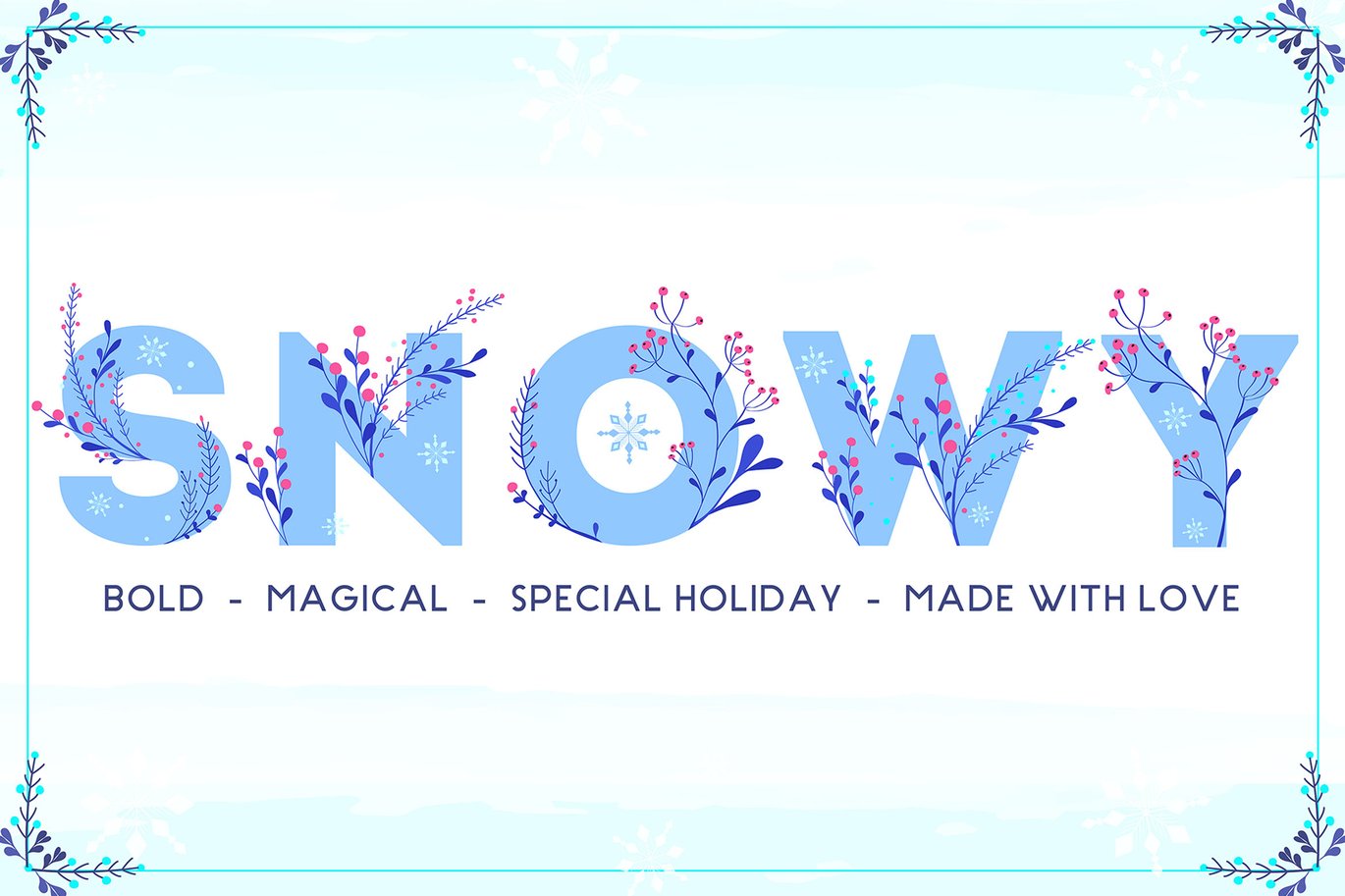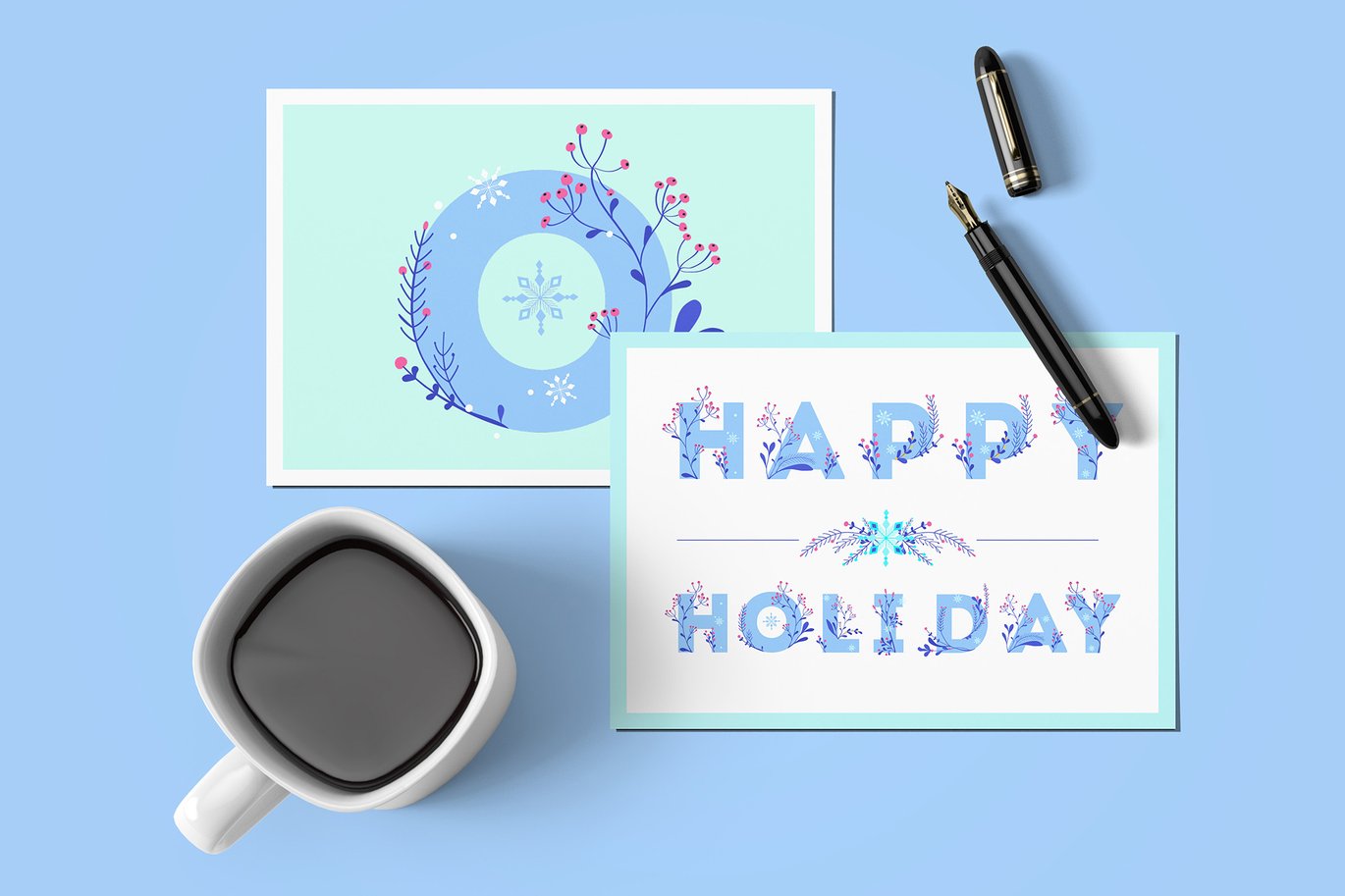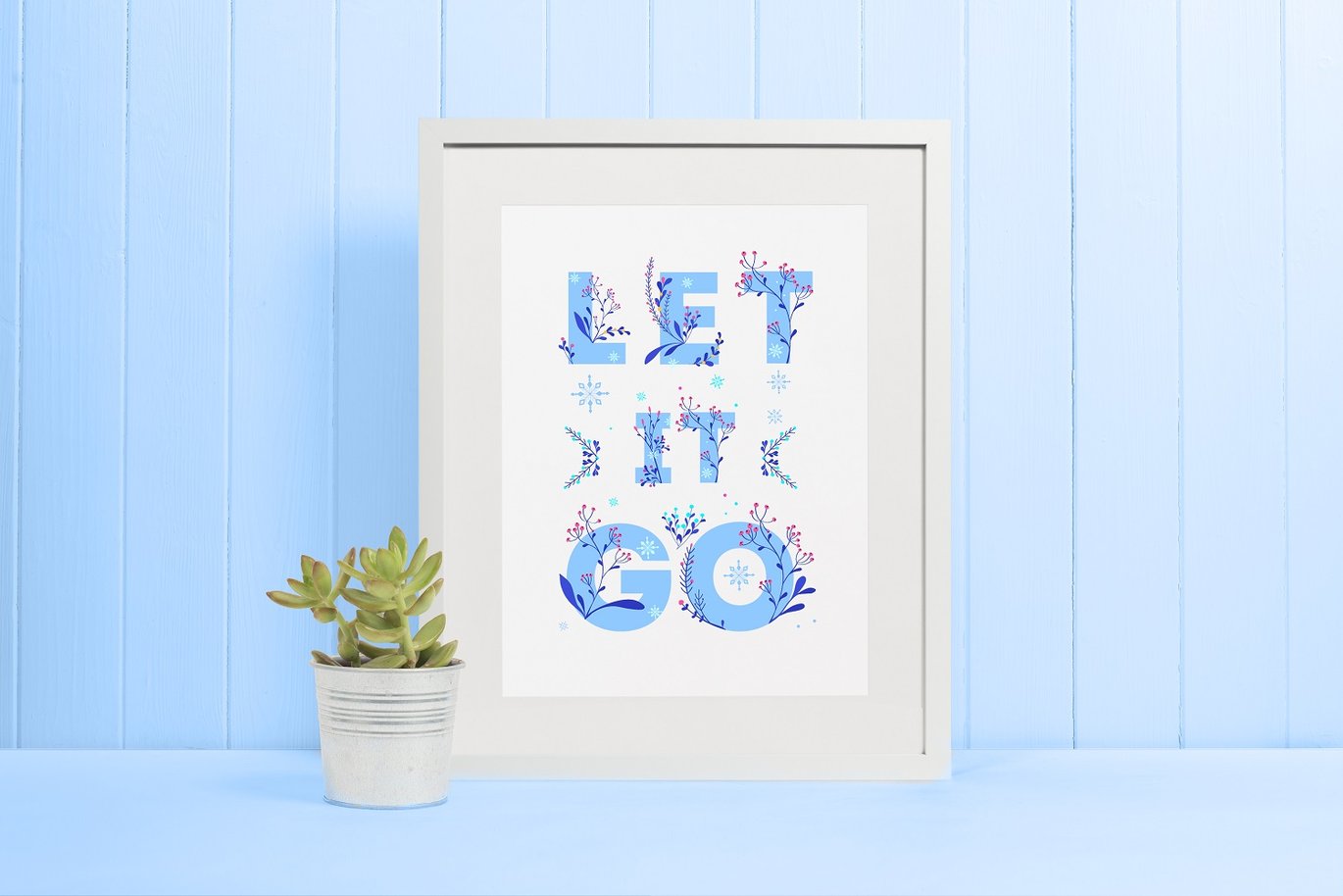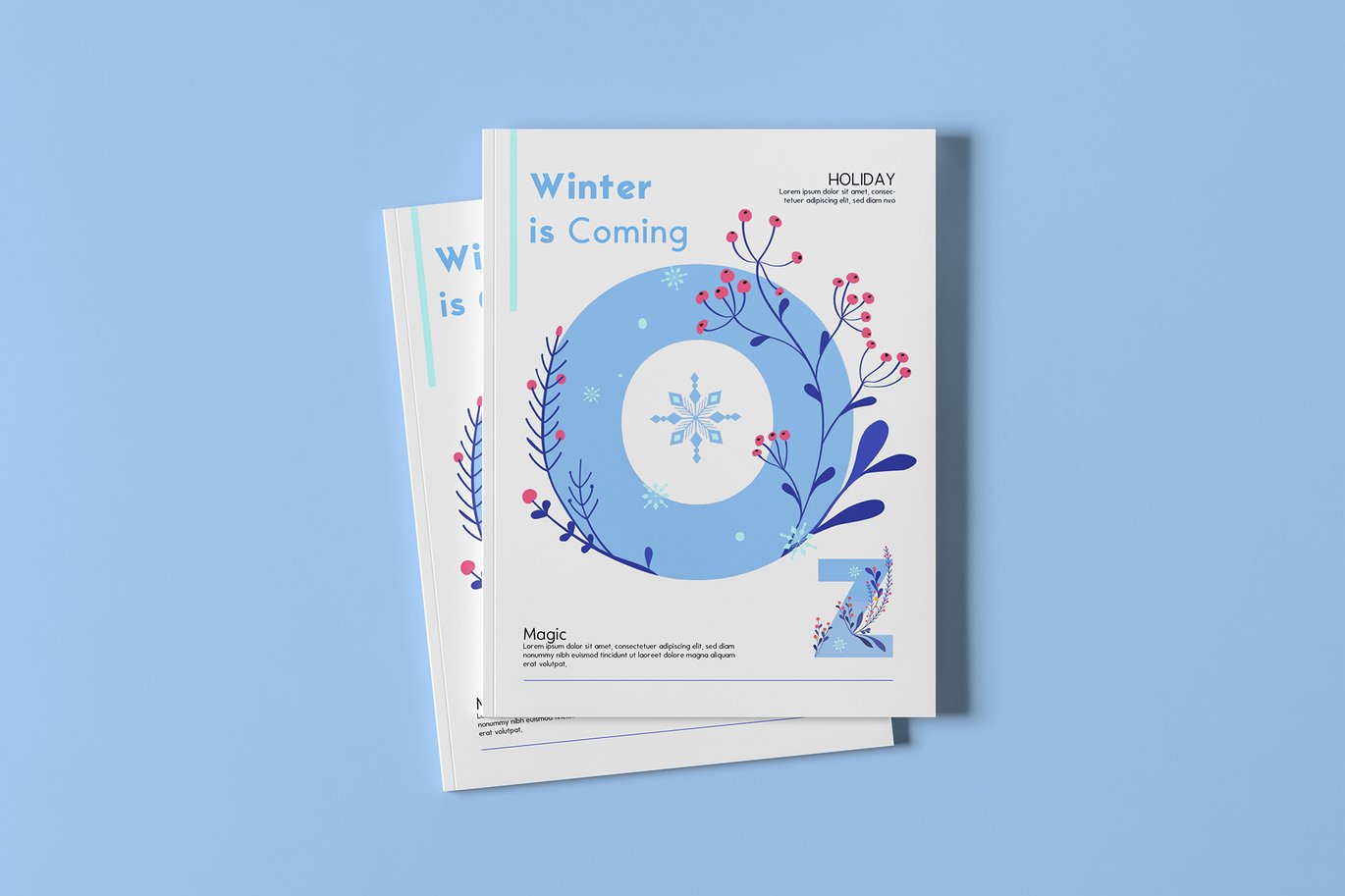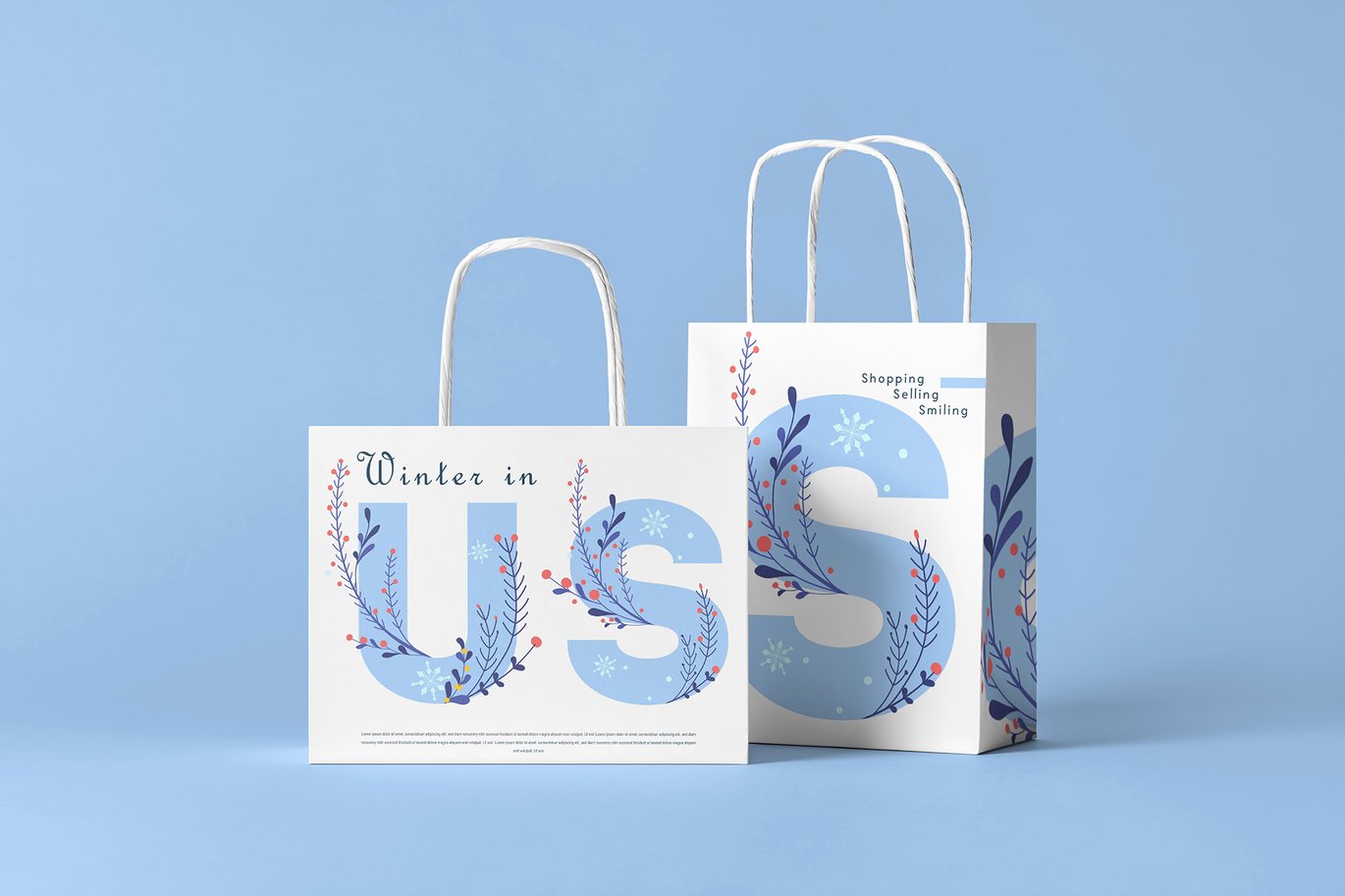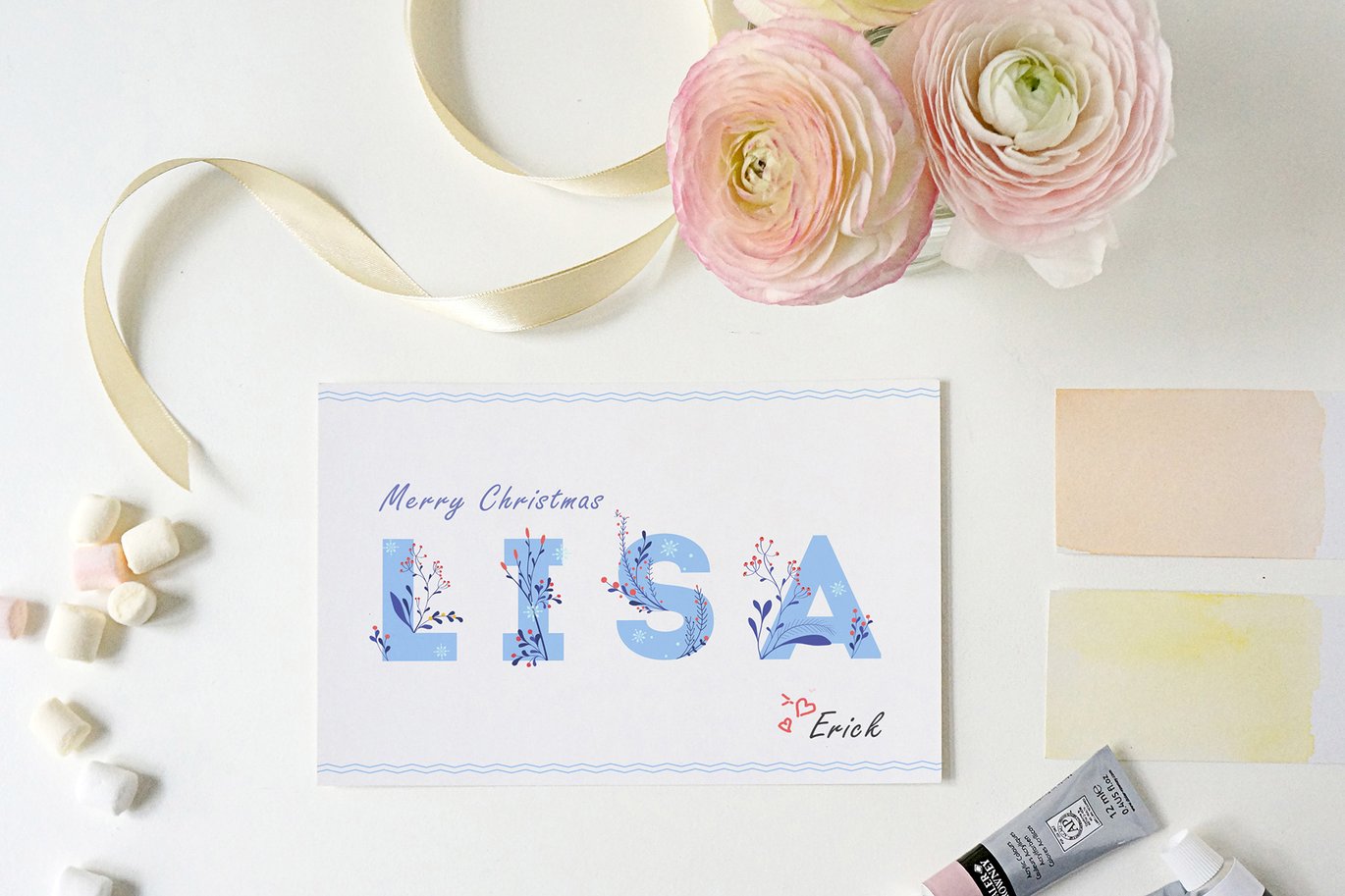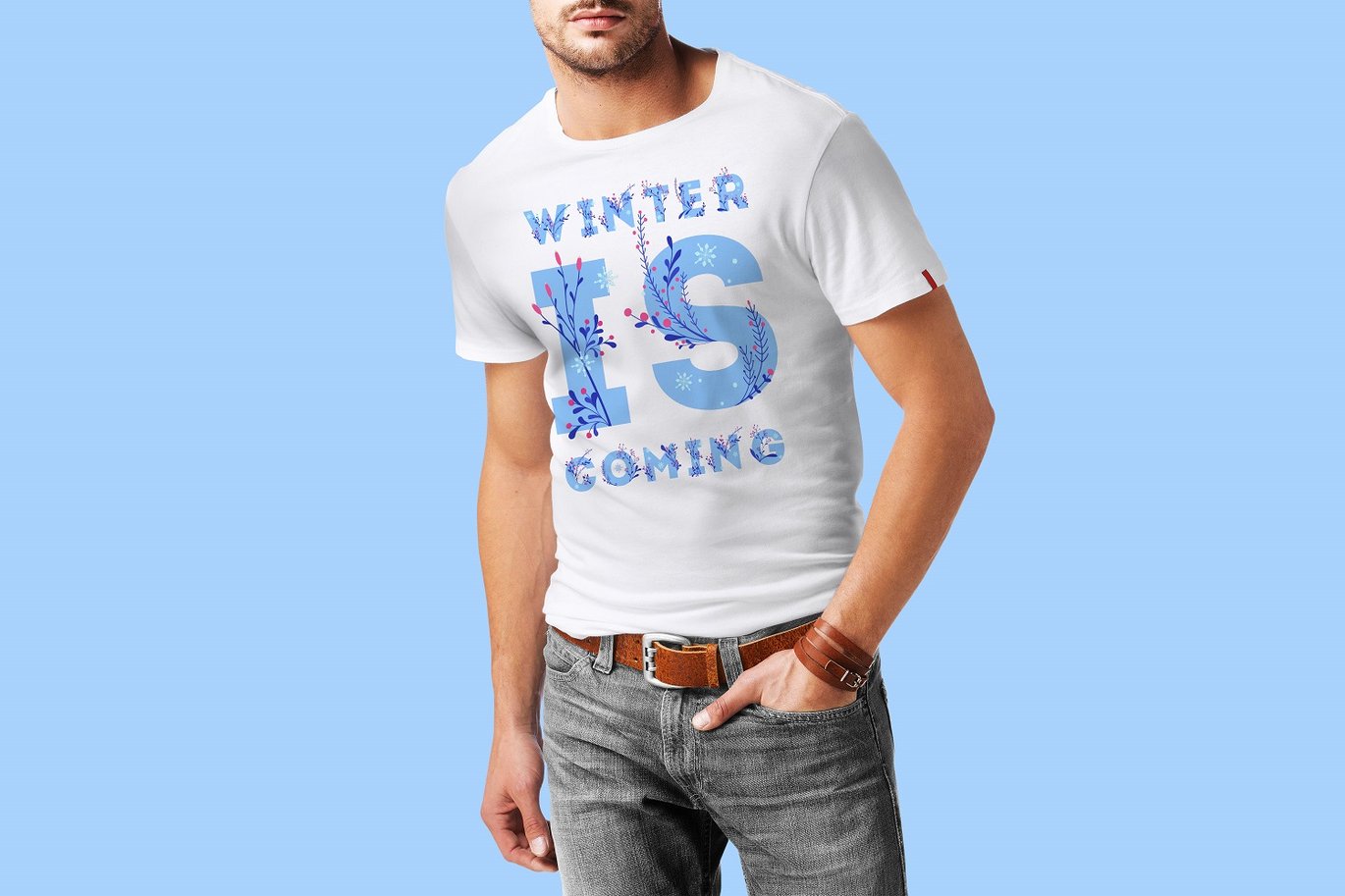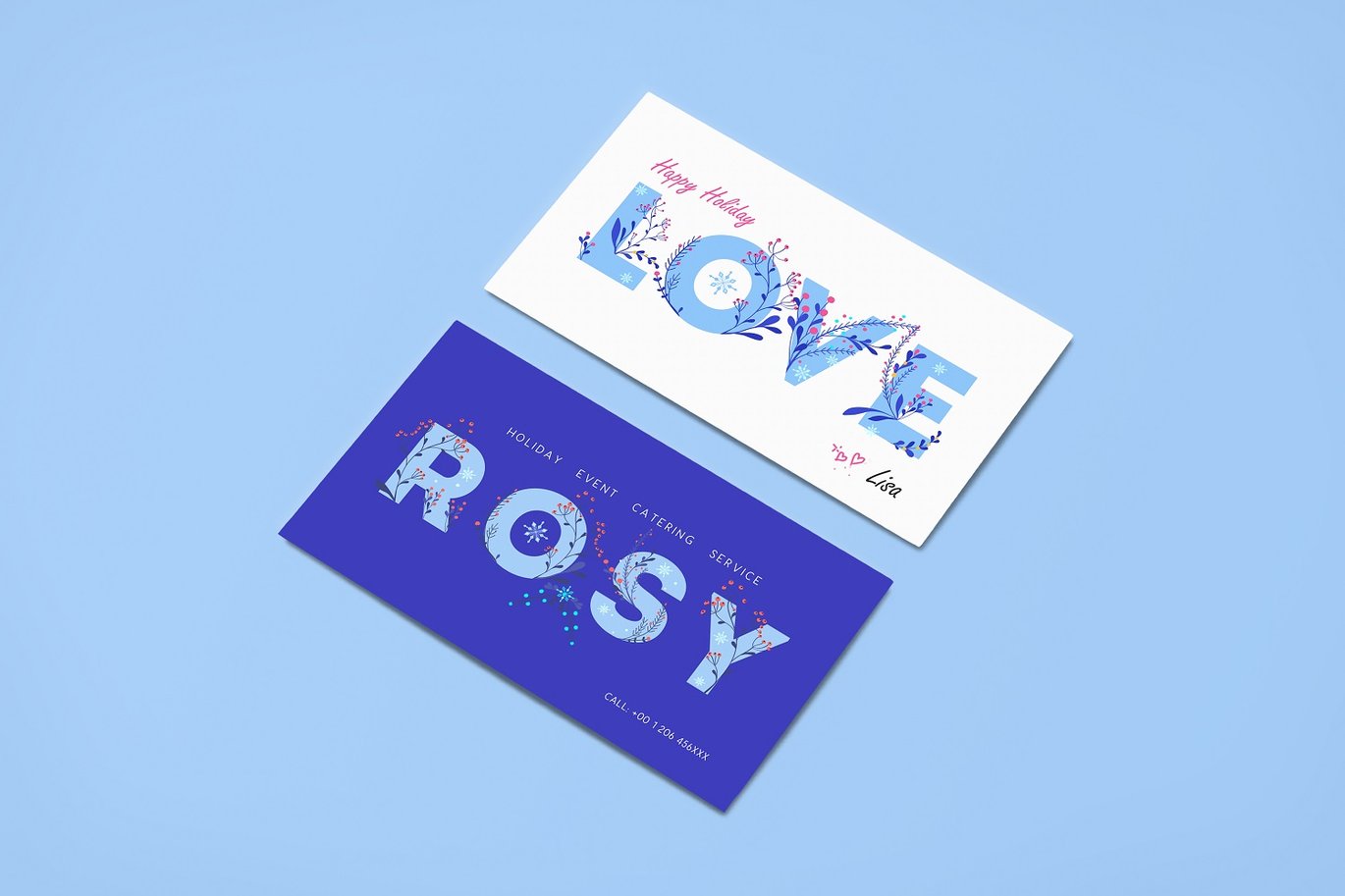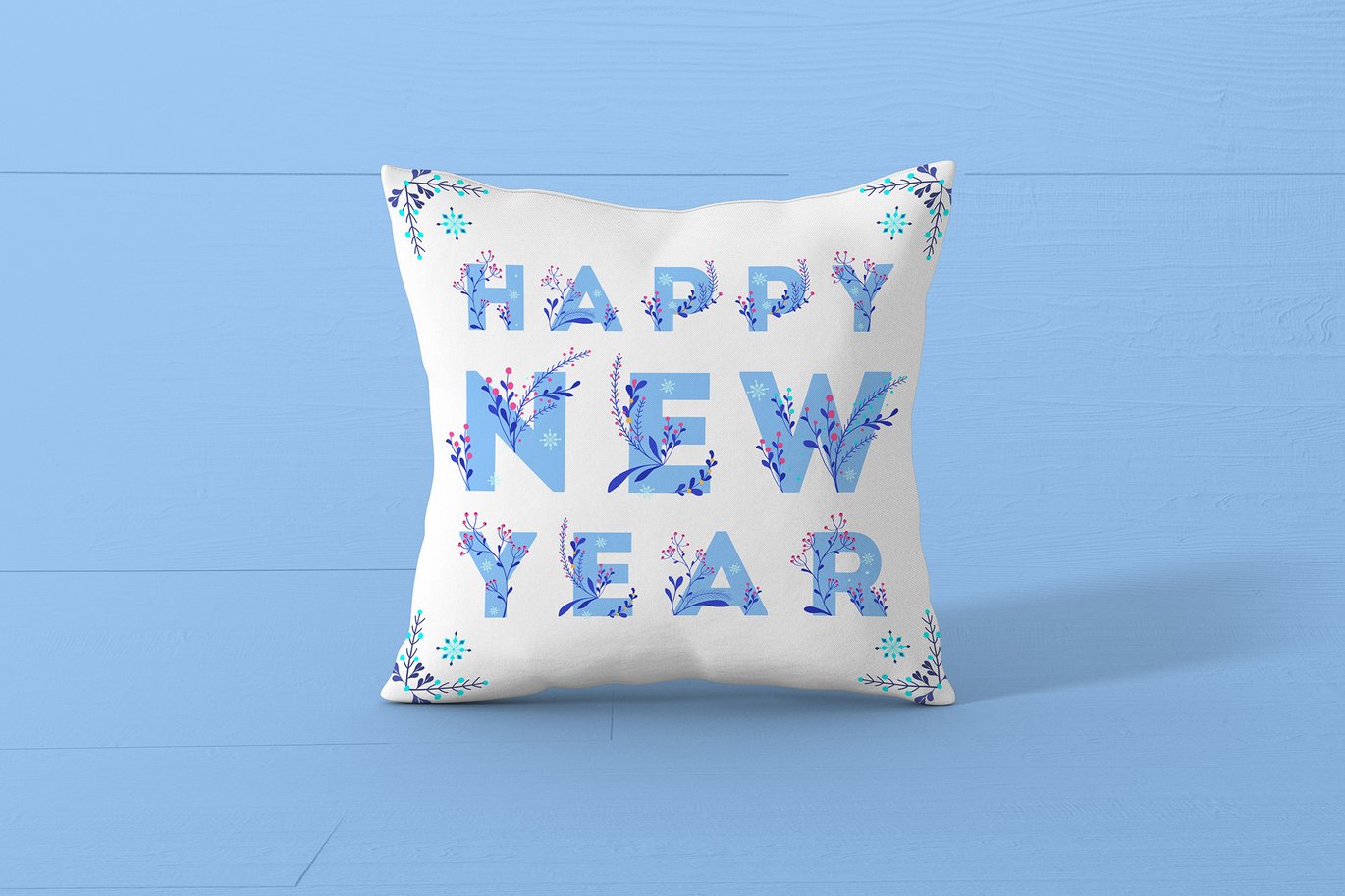
Snowy – Winter Floral Color Font
So many of you may have heard about the new font format on the scene, OpenType-SVG or Color fonts. This new format is really awesome, because we can adding much more detail and style to the letters than previously possible. Learn more about color fonts & their support in third-party apps on www.colorfonts.wtf
Winter Bold is Christmas Holiday theme color font, designed for headline and also art print. With this Magical font you can easily make your Holiday card, postcard, Banner, Logo, Poster, web and many more. Another great thing about OpenType-SVG formats is installable on Mac & windows and work like any other font.